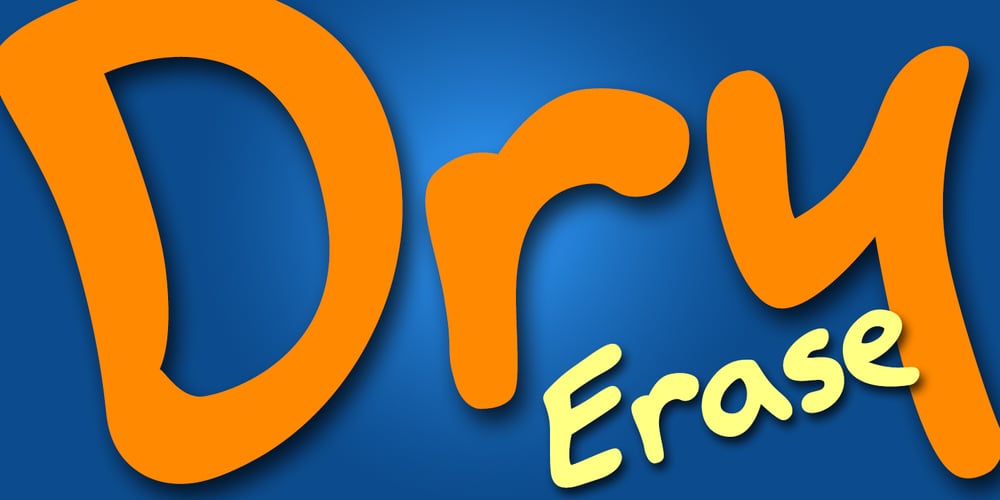
Dry Erase Font Family was designed by Danny Dawson and published by Zap Studio. Dry Erase contains 1 styles and family package options. This font is my first attempt at typeface design. It is based on my own handwriting and I tried to maintain the natural quality, where the letters are quite loose, some going in different directions, thickness and position. It has Open Type features including contextual alternatives, stylistic sets and ligatures. Trying to maintain natural quality of handwriting each glyph has four styles which randomly appear when you type. For example, when there are double letters, the two letters are slightly different. You may also switch off the random feature and use the four styles on their own. The many alternates are best activated in OpenType-aware programs, such as Word 2010, Illustrator CS4+, InDesign CS4+ and QuarkXpress 7+.